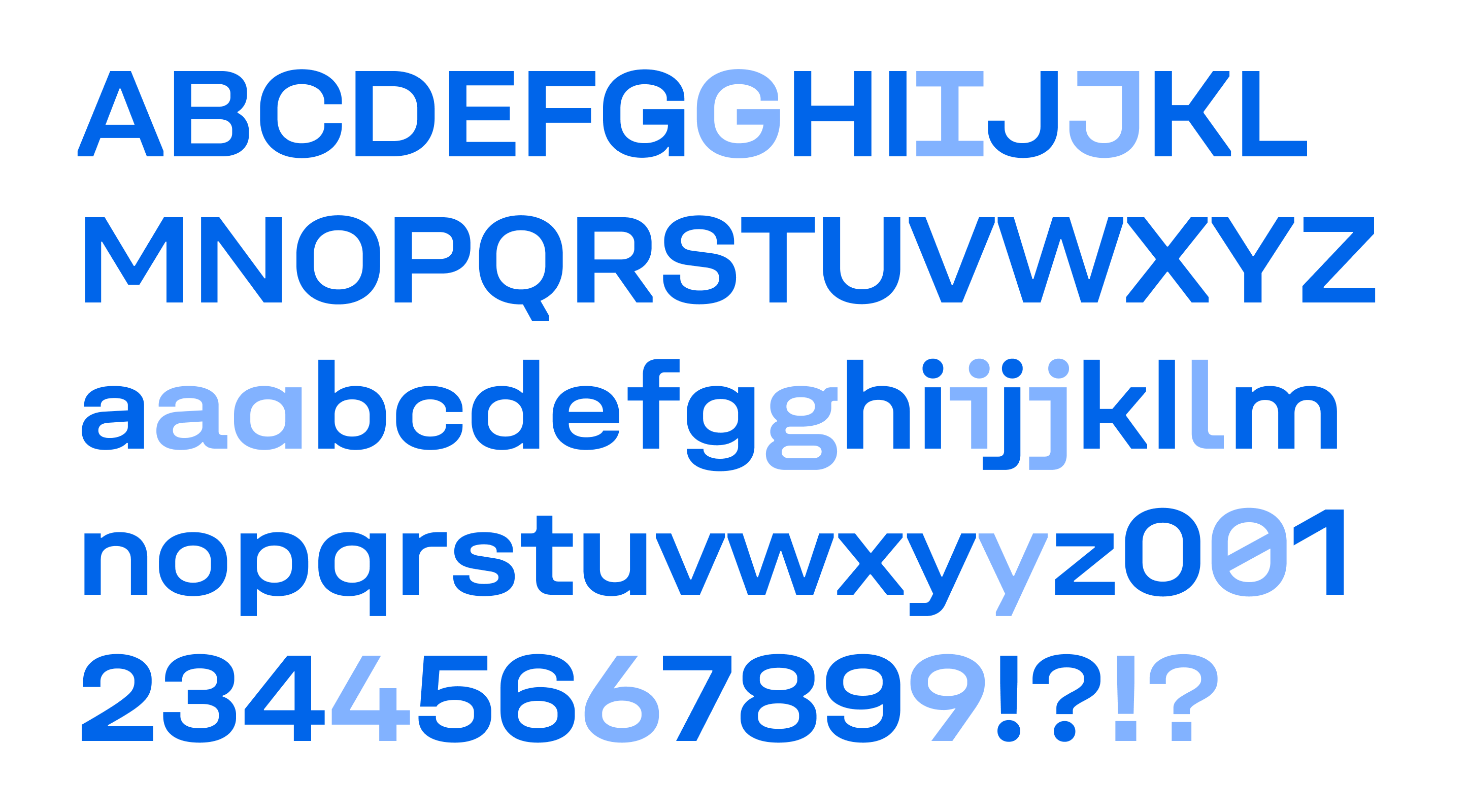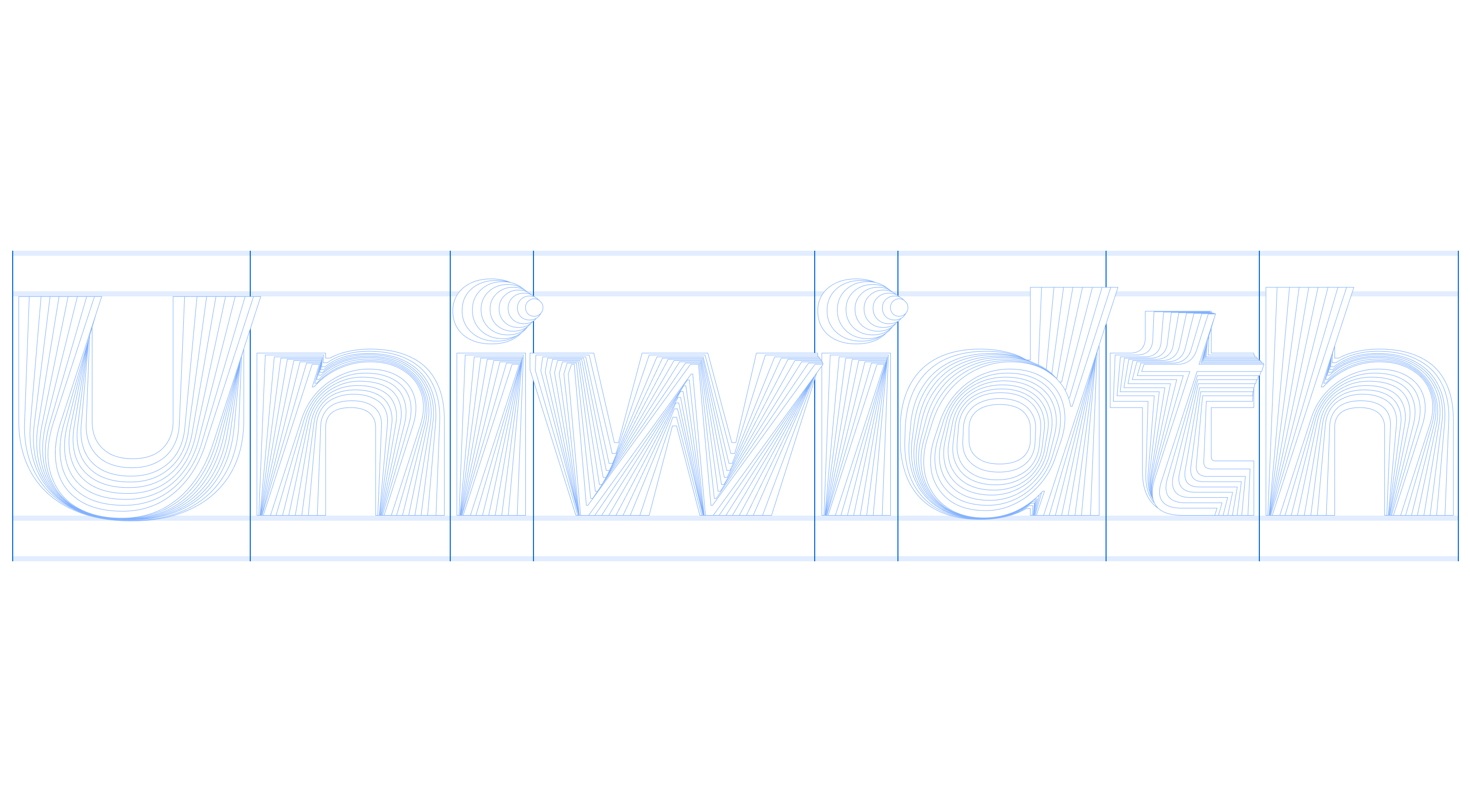
Unifora Semiexpanded Collection
Full character set of Unifora Semiexpanded, a wider-than-standard width between Standard and Expanded. Shows uppercase, lowercase, figures, punctuation, all 11 character alternates, and 3 stylistic sets displayed alongside the defaults
Wireframe overlay of the word "Uniwidth" in Unifora Semiexpanded across all nine weights. Character widths stay locked as weight changes, showing the uniwidth principle applied to a wider-than-standard setting of the family
Close-up of Unifora's lowercase "o" with bezier construction points visible, showing the straight segments on round glyphs. This signature design detail gives Unifora its industrial character and distinguishes it from purely geometric sans-serifs
Diagram illustrating Unifora's corner cuts on diagonal terminals, shown with scissor marks around the word "New York". The cuts carve breathing room where uniwidth spacing would otherwise cause angled strokes to collide at intersections
Unifora OpenType features: ss01 square punctuation, ss02 high-legibility set, ss03 open six and nine; cv01–cv11 character alternates for I, J, G, a, g, i, j, l, y, 4; plus ligatures, ordinals, slashed zero, tabular figures, case-sensitive forms
Unifora Semiexpanded is drawn at 112.5% of the standard proportions—wide enough to give each character room to breathe, restrained enough to remain viable for multi-line text. Within the Unifora uniwidth variable sans-serif superfamily, Semiexpanded is the editorial width: suited to marketing pages, premium product landing pages, longform articles, and any context where the typeface is expected to carry more visual presence without being limited to headlines.
It reads particularly well at mid-range sizes—18 to 36px—where Standard can feel dense and Expanded too wide for sustained reading. Semiexpanded is also effective in data visualization, where chart labels and axis annotations need to be prominent and scannable alongside the visual content.
Within Semiexpanded, the uniwidth principle applies: every glyph holds its advance width across all weights and styles, so the layout holds stable regardless of weight or slant. See the Unifora user’s manual for axis configuration and guidance on combining multiple widths in a single typographic system.
Unifora Semiexpanded comes with 9 weights and matching italic and retalic styles with slants up to 18°. The variable font includes two axes: weight and slant.